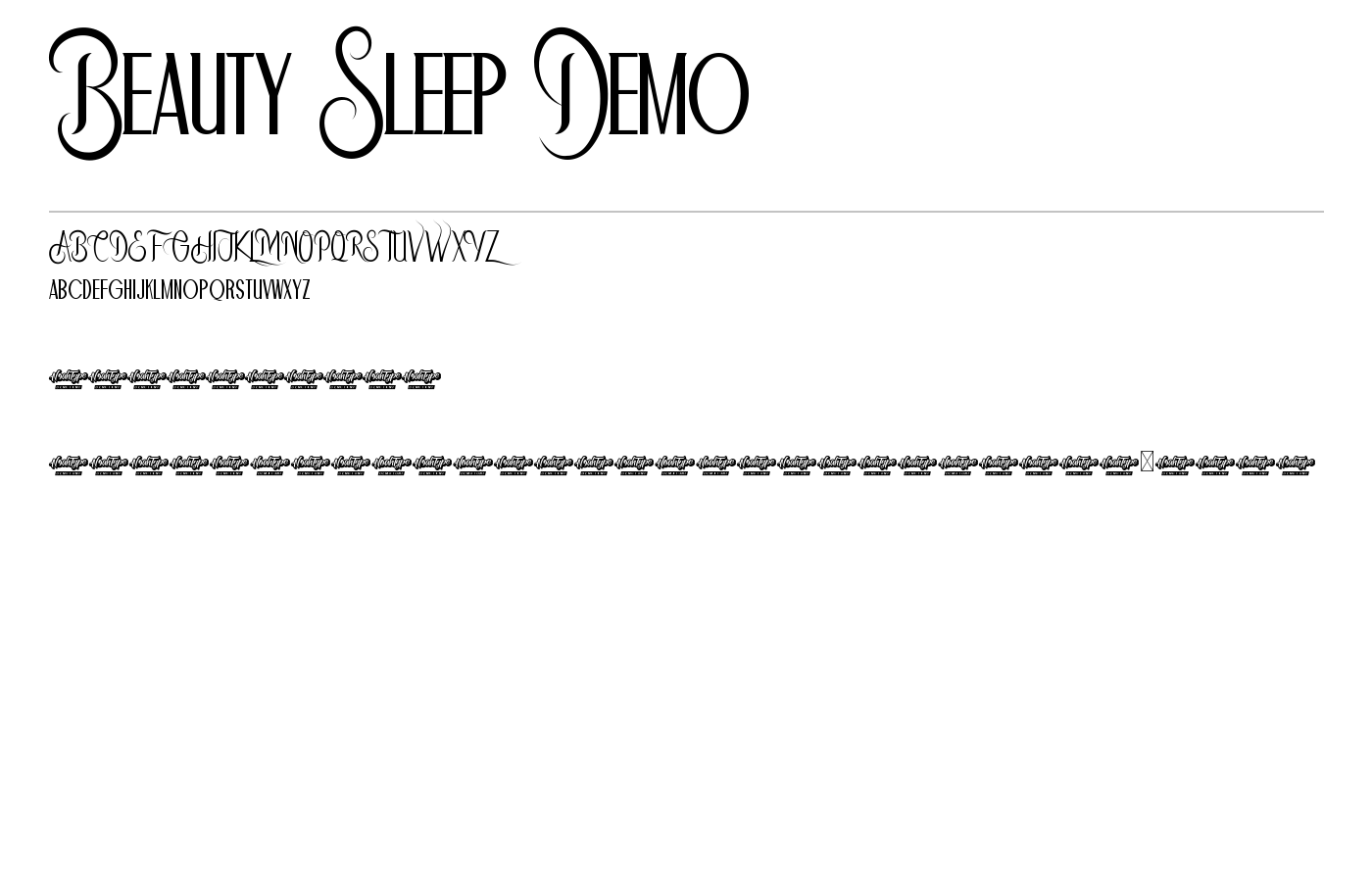
Beauty Sleep Demo is a tall, elegant serif font with a playful Art Deco flair, featuring slender letterforms and distinctively stylized serifs that curve gracefully. Its high contrast between thick and thin strokes, combined with unique ornamental details, makes it perfect for sophisticated branding, fashion headlines, and upscale editorial designs where a touch of vintage luxury and charm is desired. This font stands out best in large display uses where its refined personality can truly shine.
Beauty Sleep Demo Font
About Beauty Sleep Demo Font